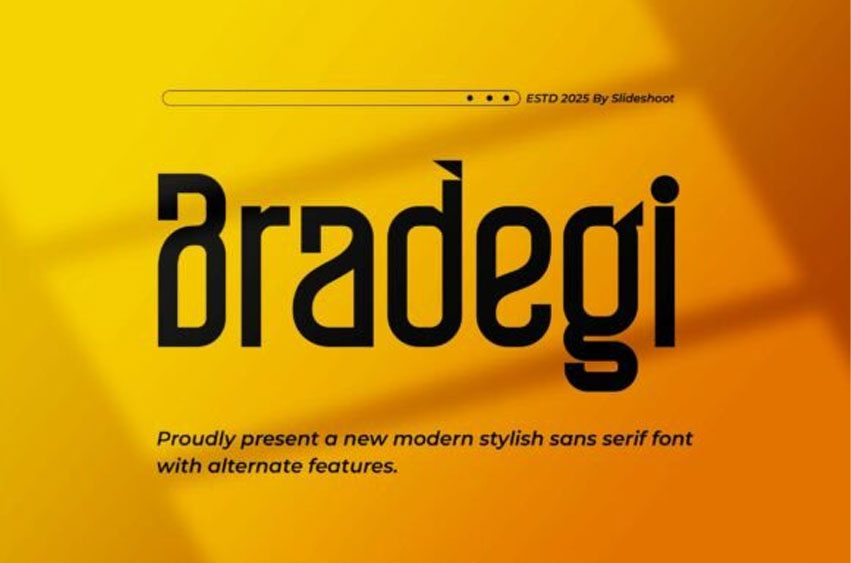
Bradegi Font is a sleek and modern sans serif font with striking alternate characters.
Its sharp geometry and stylized terminals make it an excellent choice for tech brands, futuristic themes, and edgy branding that needs a clean yet unique voice.